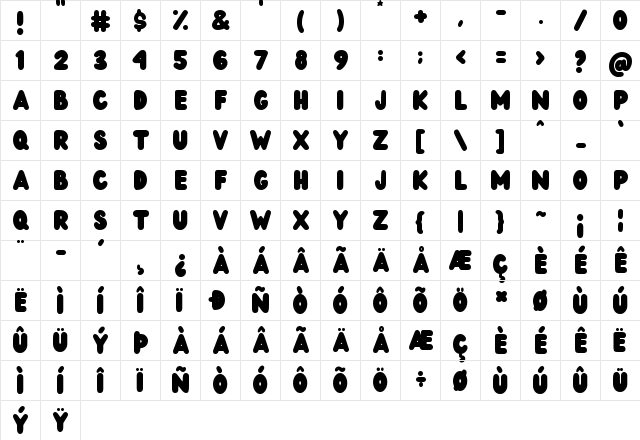
Wedges Regular
| Designer | Dimas Prasetyo |
Design Context for Wedges Typeface
Wedges is a composed and adaptable typeface that performs quietly and consistently across a wide range of design contexts.